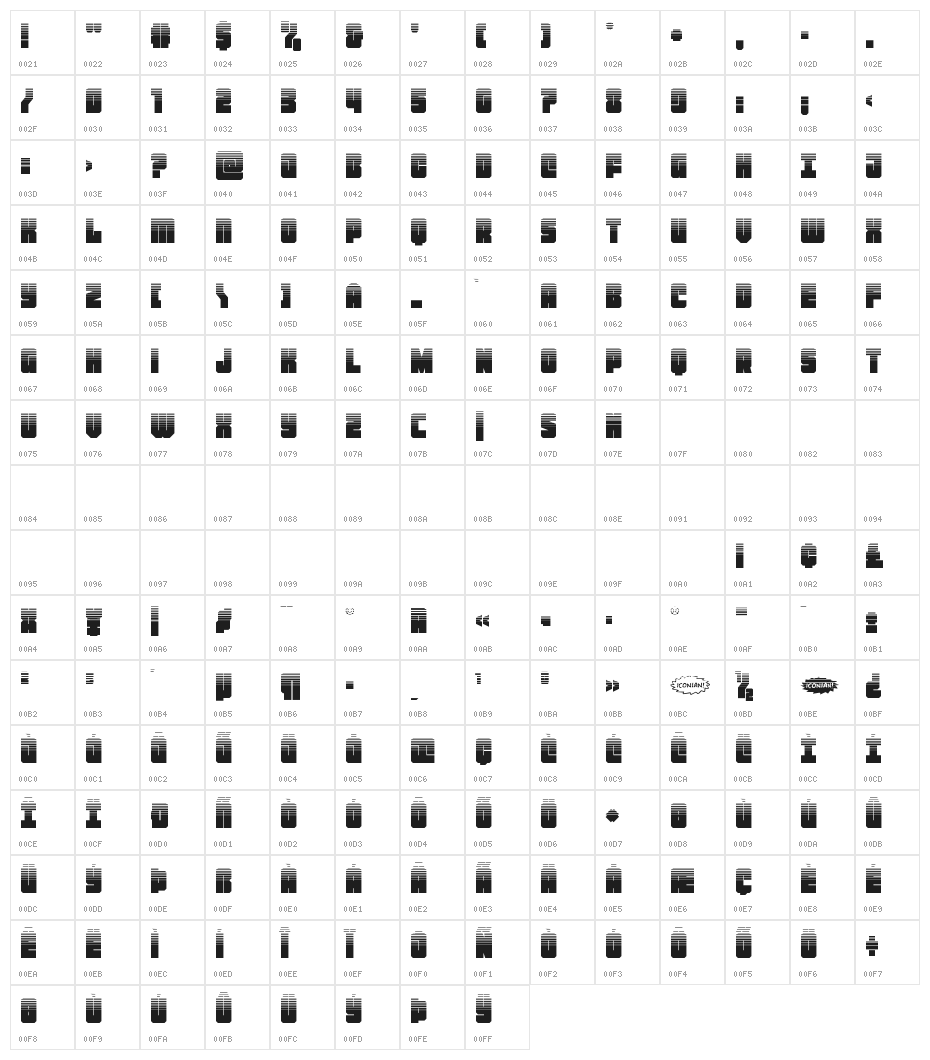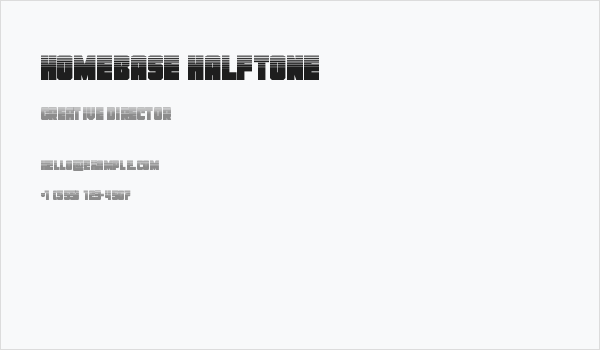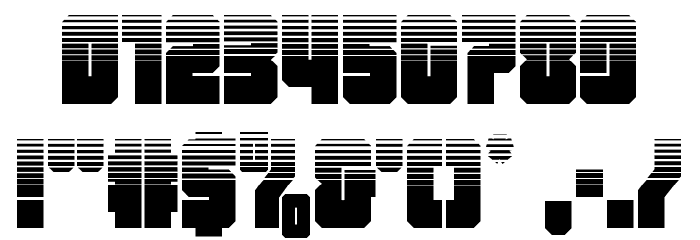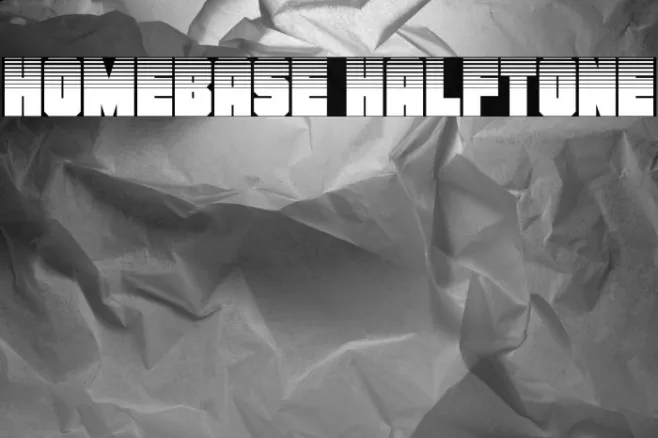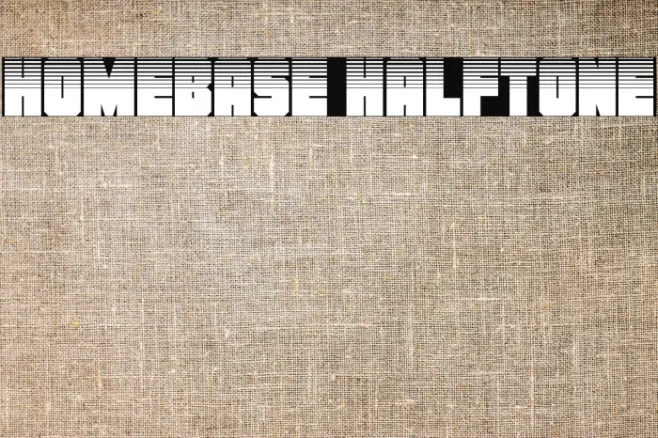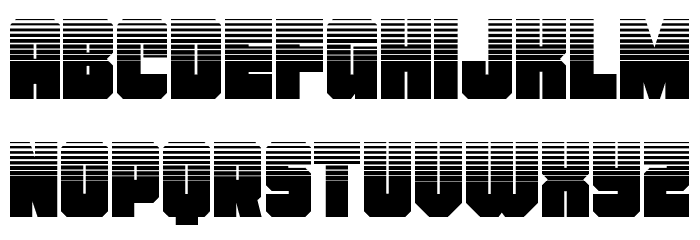
Homebase Halftone Font
Homebase Halftone Description
This font features a bold and striking design with a halftone effect that gives it a unique, layered appearance. The characters are blocky and geometric, with horizontal lines creating a sense of depth and texture. This style is reminiscent of retro digital displays or vintage arcade games, making it ideal for projects that require a nostalgic or tech-inspired aesthetic. The uppercase letters are particularly prominent, with a strong presence that commands attention. The numbers and special characters maintain the same bold style, ensuring consistency across all elements.
| Overall Style | Retro, Tech-inspired |
| Proposed Projects | Perfect for posters, video game graphics, retro-themed branding, and digital artwork. |